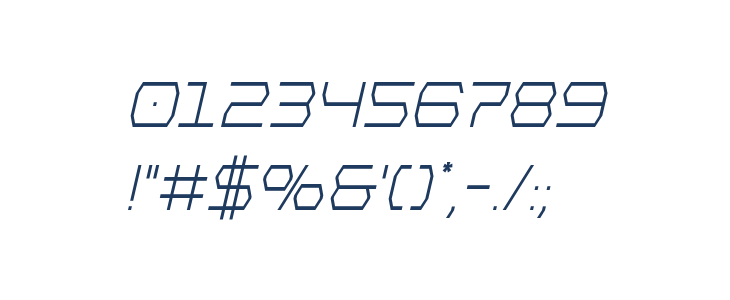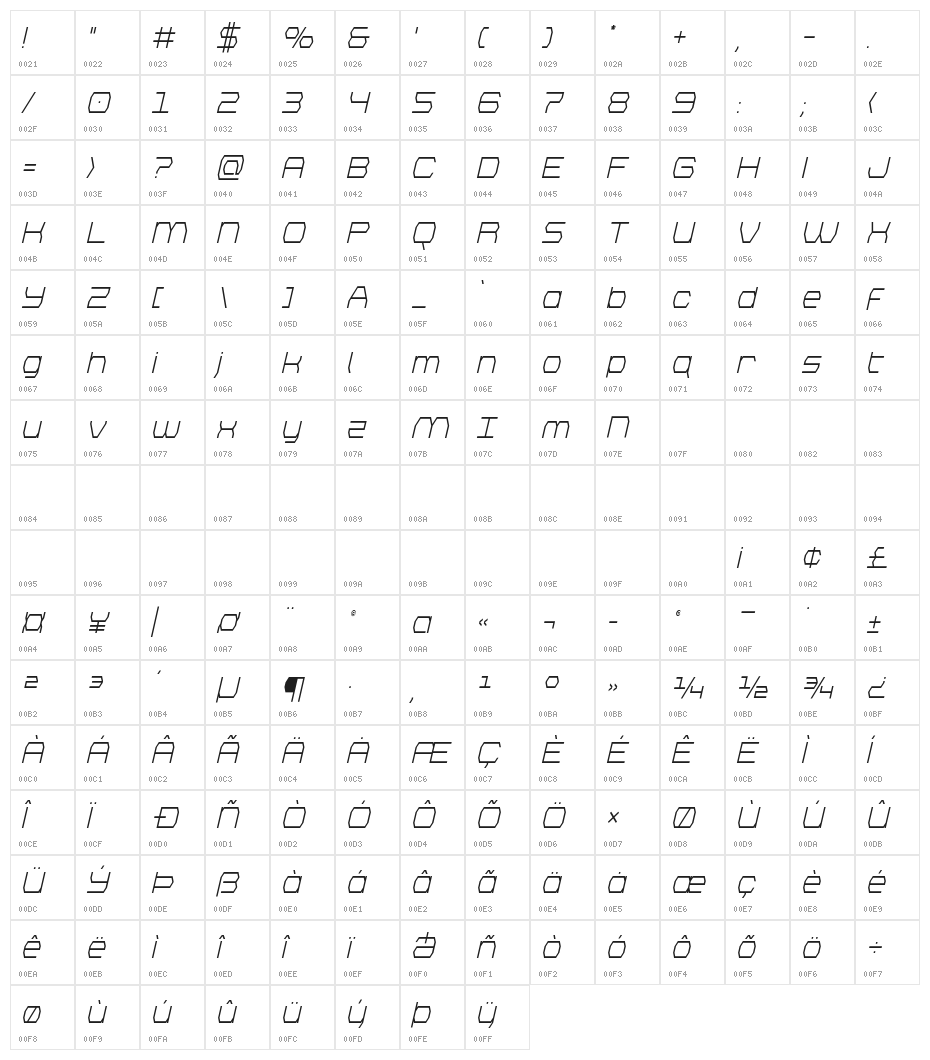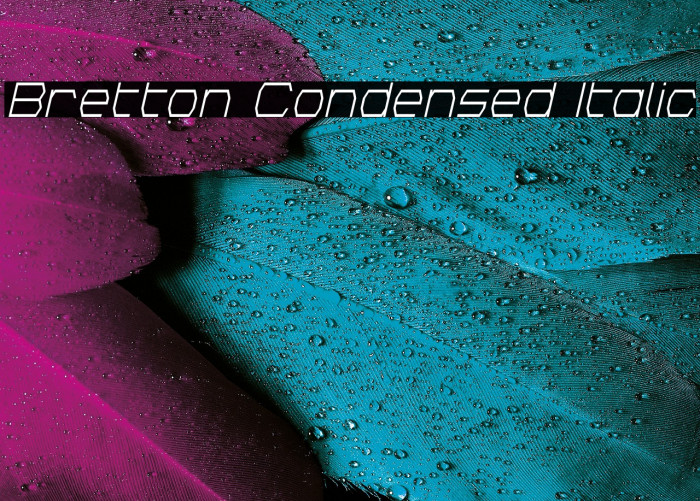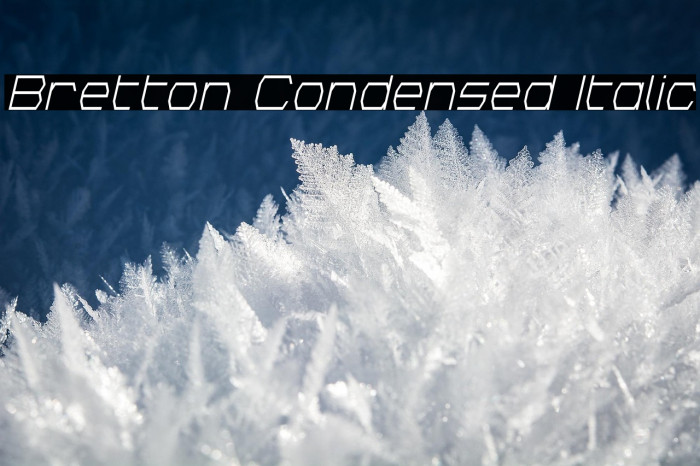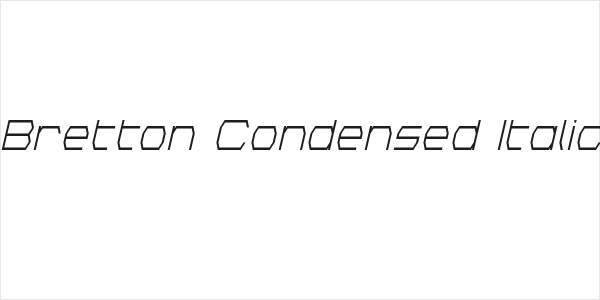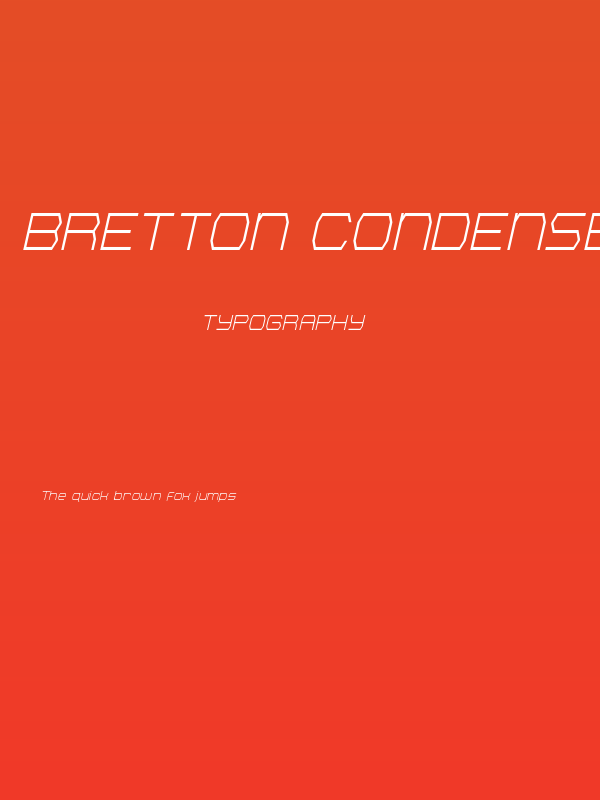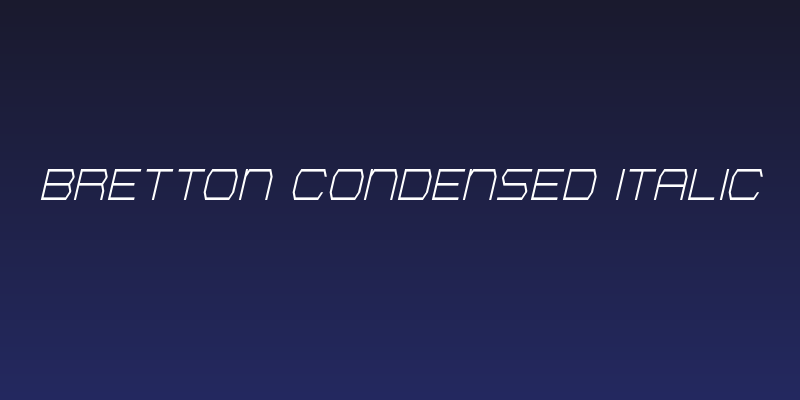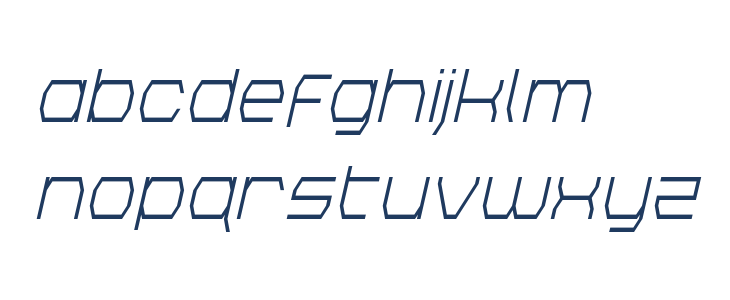
Bretton Condensed Italic Font
Bretton Condensed Italic Description
This font features a modern, geometric design with a condensed and italicized style. The characters are constructed with clean, angular lines, giving it a sleek and futuristic appearance. The uppercase and lowercase letters maintain a consistent height, contributing to a uniform look. The numerals and special characters follow the same geometric pattern, ensuring cohesion across all glyphs. The italic slant adds a dynamic feel, enhancing its contemporary aesthetic. This font is highly legible, making it suitable for various design applications where clarity and style are paramount.
| Use Case | Headlines, Logos, Digital interfaces |
| Proposed Projects | Ideal for technology branding, modern advertising, digital interfaces, and futuristic design projects. |